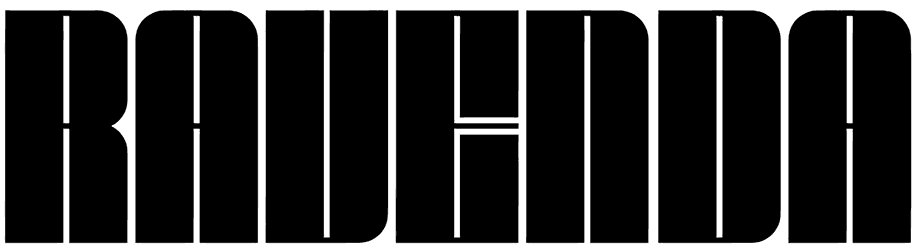
Ravenda Font
Ravenda, a groovy font, makes us think of psychedelic vibes. This font, which features a mixture of both lowercase and uppercase characters, is perfect for use in branding, flyers, and other creative projects. You have to note that it doesn’t support full numbers.